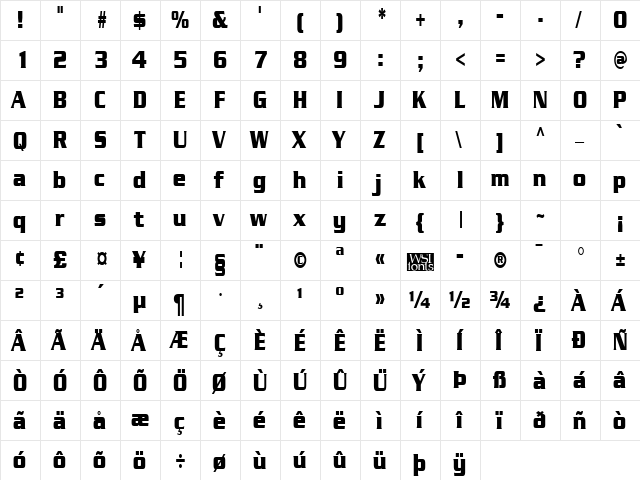
JuliusCondensedBlack Regular Font Preview
JuliusCondensedBlack Regular
Design Context for JuliusCondensedBlack Typeface
JuliusCondensedBlack is a composed and adaptable typeface that performs quietly and consistently across a wide range of design contexts. Its narrow stance lets it pack a punch even in space-constrained designs.